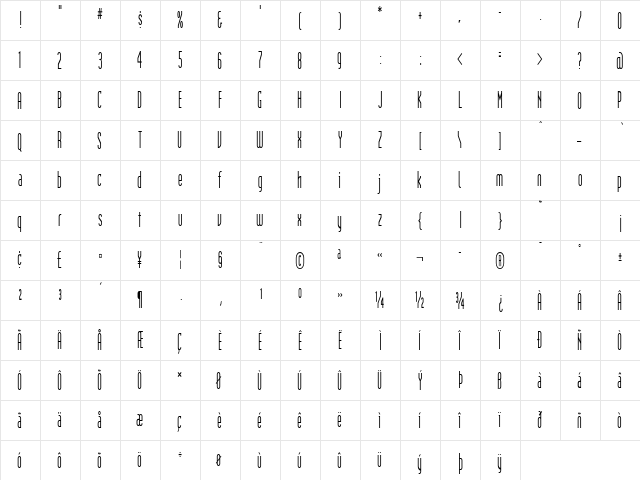
IndustrialCondensed Regular
Design Context for IndustrialCondensed Typeface
IndustrialCondensed is a composed and adaptable typeface that performs quietly and consistently across a wide range of design contexts. The condensed width makes it efficient for tight spaces without sacrificing legibility.